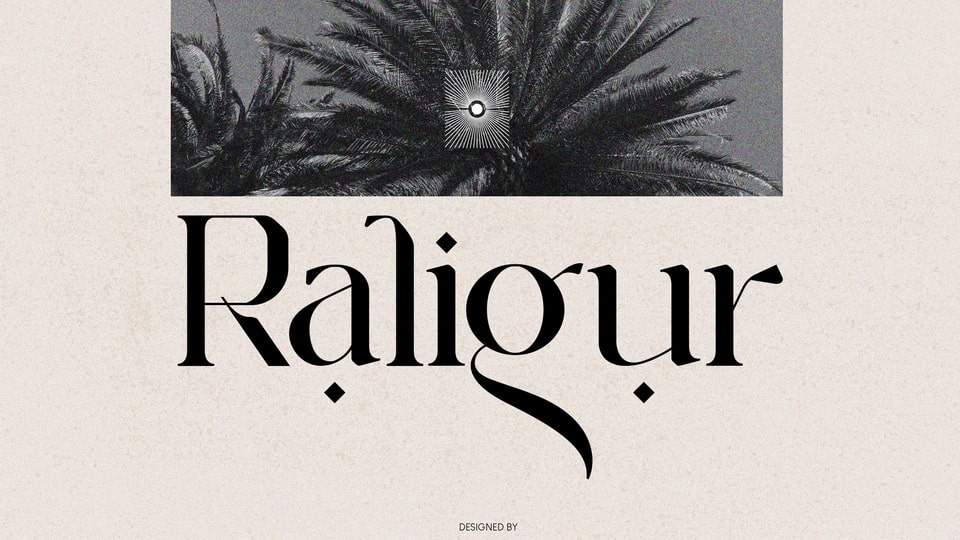
Download Raligur font, a harmonious blend of timeless aesthetics and modern versatility, making it a perfect choice for designers seeking a balance between tradition and innovation.